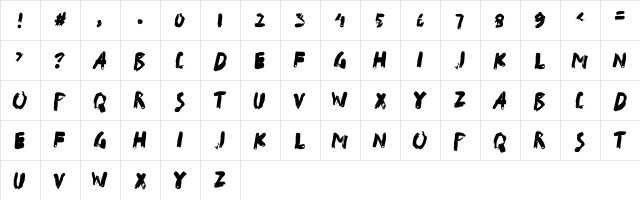
WetSlash Bold Font Preview
WetSlash Bold
WetSlash Bold Font Details
Design Context for WetSlash Typeface
WetSlash is a composed and adaptable typeface that performs quietly and consistently across a wide range of design contexts. Its bold stroke weight gives it real presence on the page.